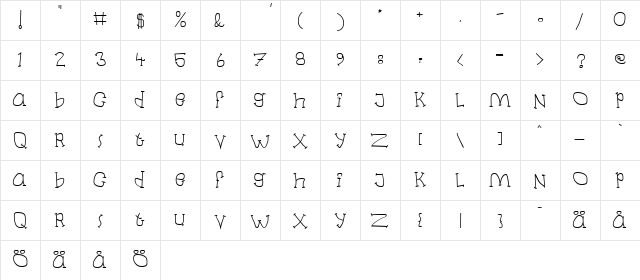
Laban Regular Font Preview
Laban Regular
Design Context for Laban Typeface
Laban is a composed and adaptable typeface that performs quietly and consistently across a wide range of design contexts.